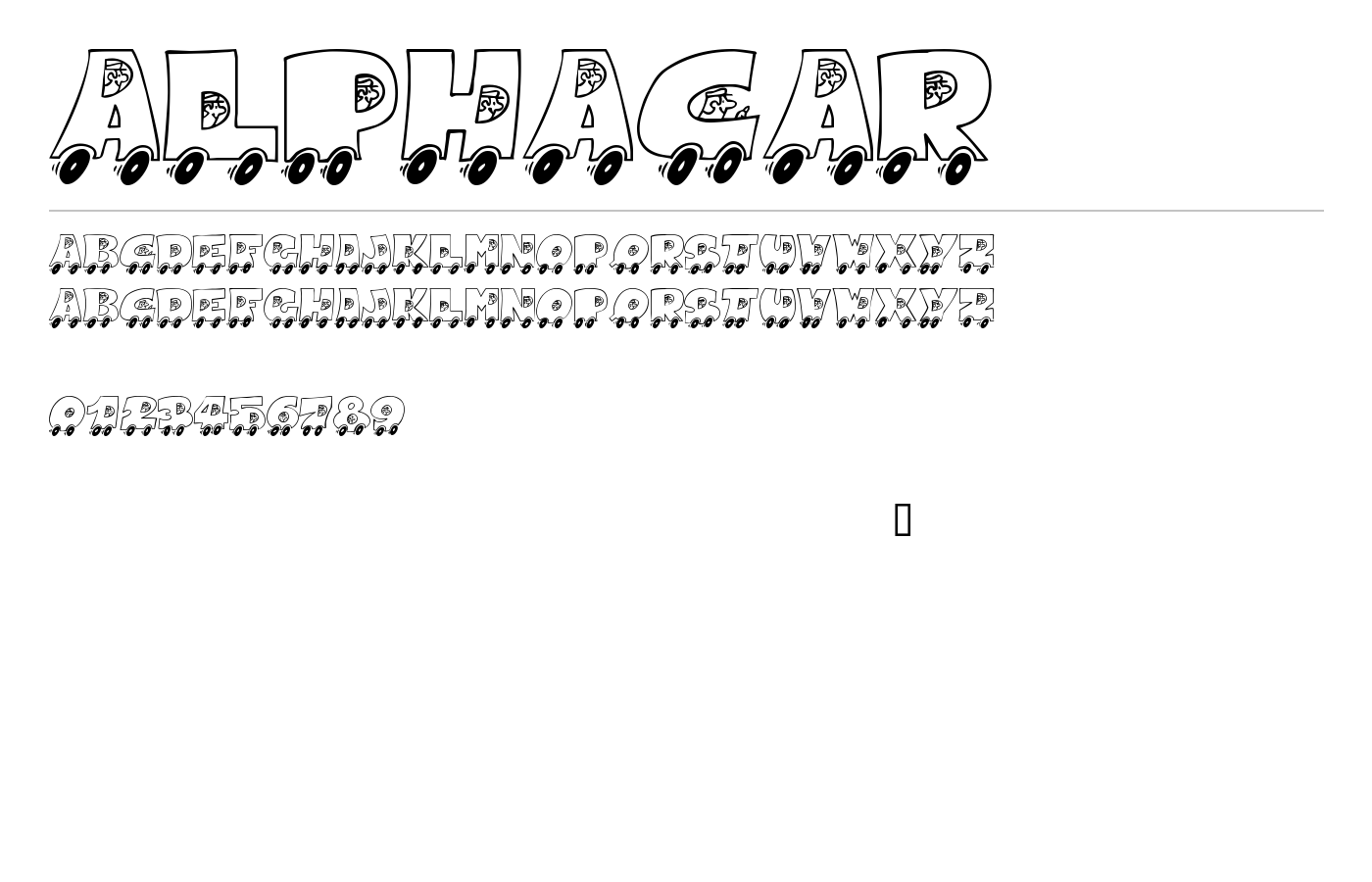
AlphaCar Font is a playful and whimsical display typeface featuring bold, cartoonish letters that resemble cars with wheels, giving it a dynamic and fun personality. Its strong, rounded shapes and eye-catching details make it perfect for children’s projects, automotive-themed designs, or playful branding where a lighthearted and energetic style is desired. This font works best in headlines, logos, and creative posters where its unique, illustrative character can shine.
AlphaCar Font
About AlphaCar Font